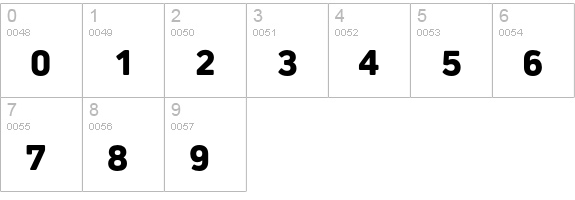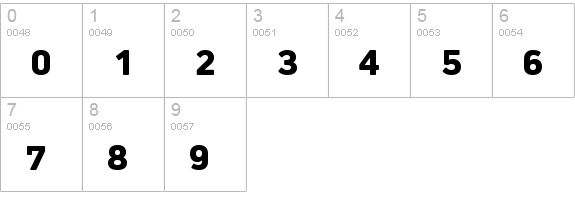
Kiro Extra Bold is a strong, high-contrast variant in the Kiro typeface family \xE2\x80\x94 well suited to headlines, attention-grabbing titles, and strong calls-to-action.
Introducing Kiro Extra Bold font, a striking and powerful typeface designed to make a bold statement. With its thick, heavy strokes and sharp edges, Kiro Extra Bold exudes strength and confidence. This versatile font is perfect for headlines, posters, logos, and any design project that requires a strong and impactful typography. What's even better is that Kiro Extra Bold is available for free download at FontsMarket.com. Yes, you read that right - you can get your hands on this impressive font without spending a dime. So why wait? Elevate your designs with Kiro Extra Bold and make a lasting impression today!